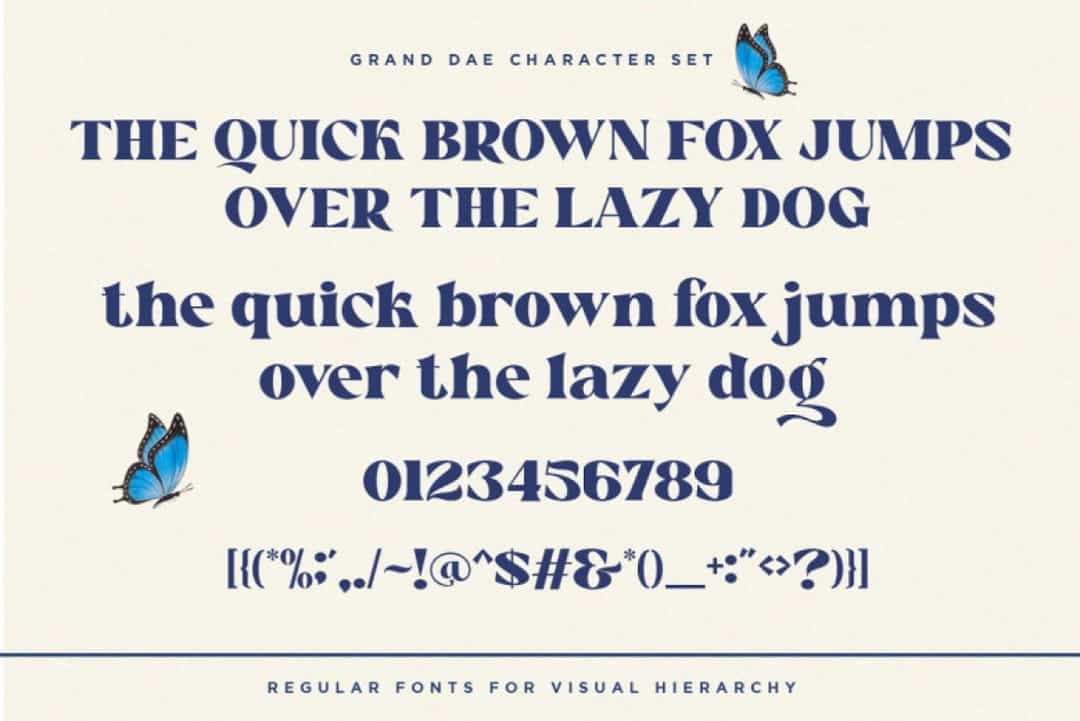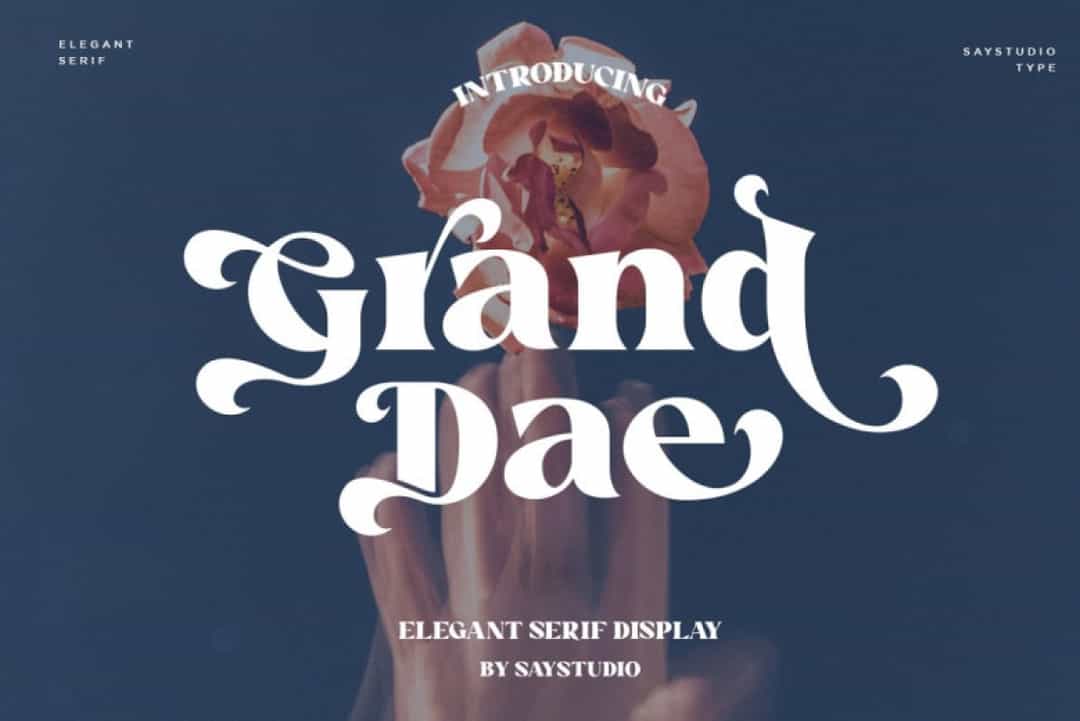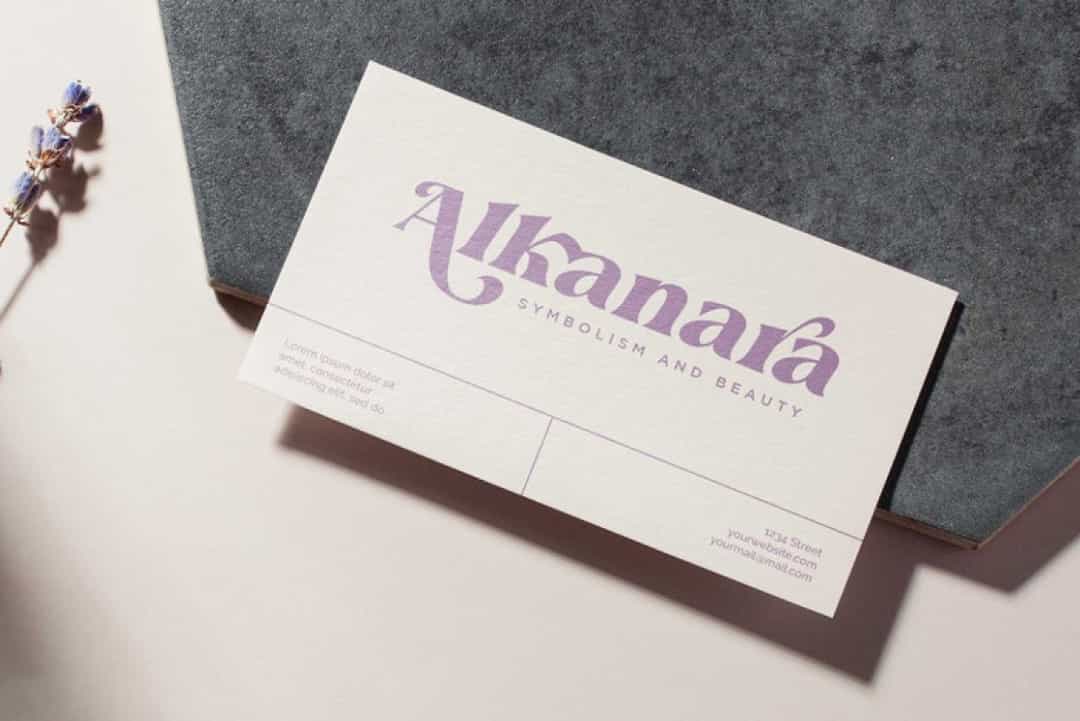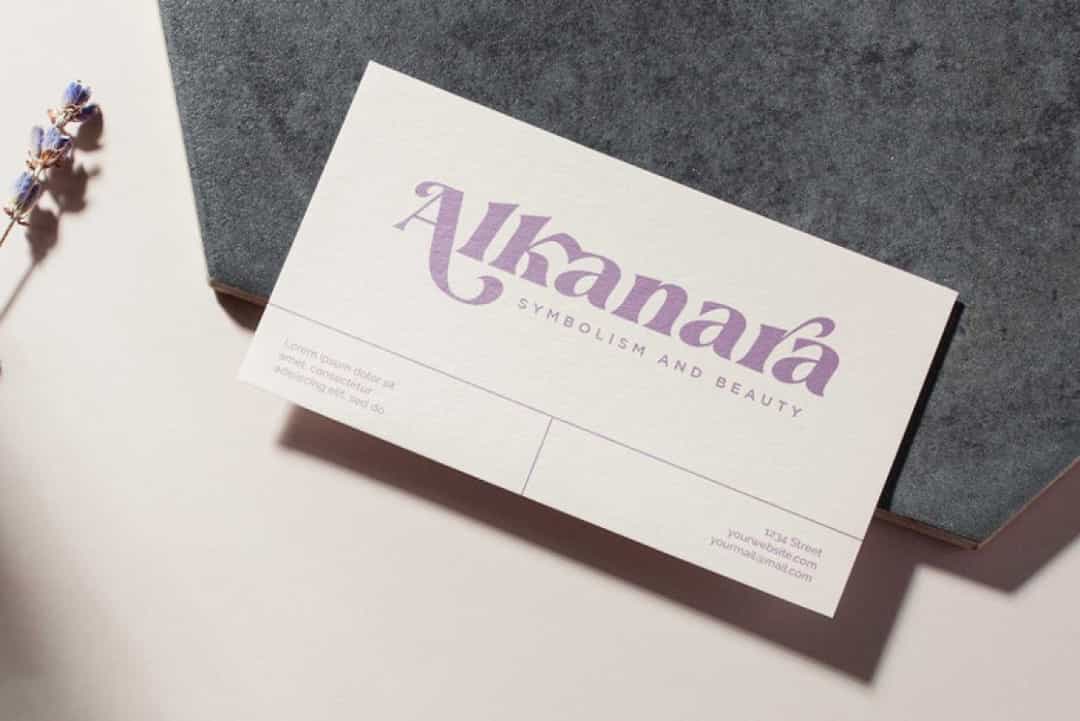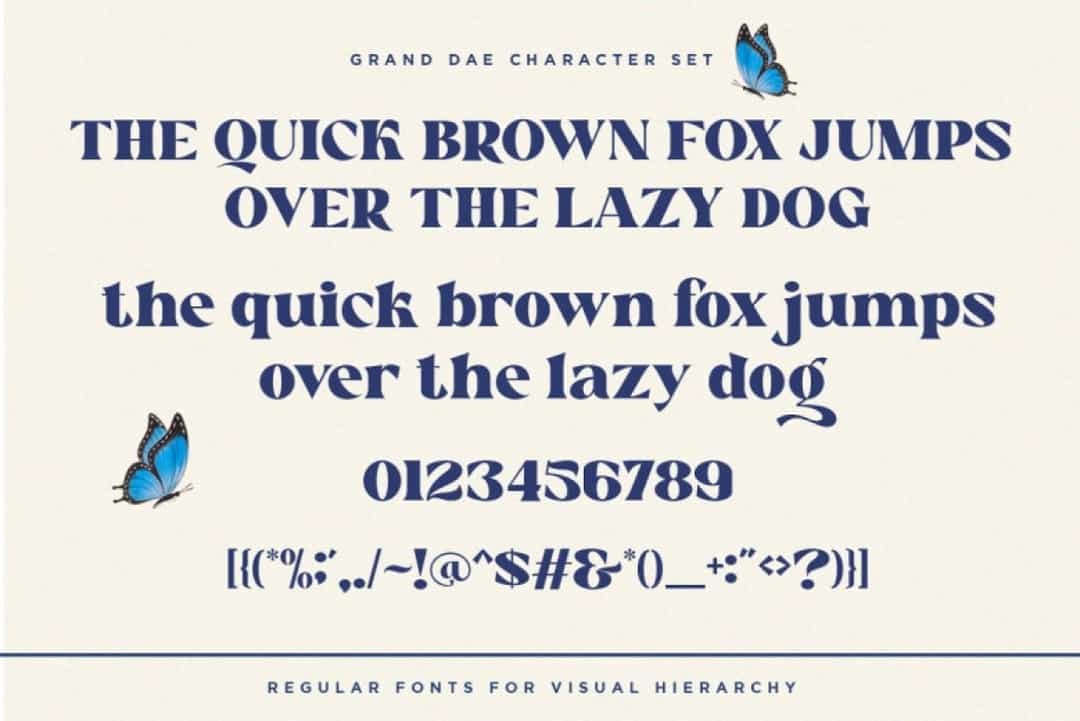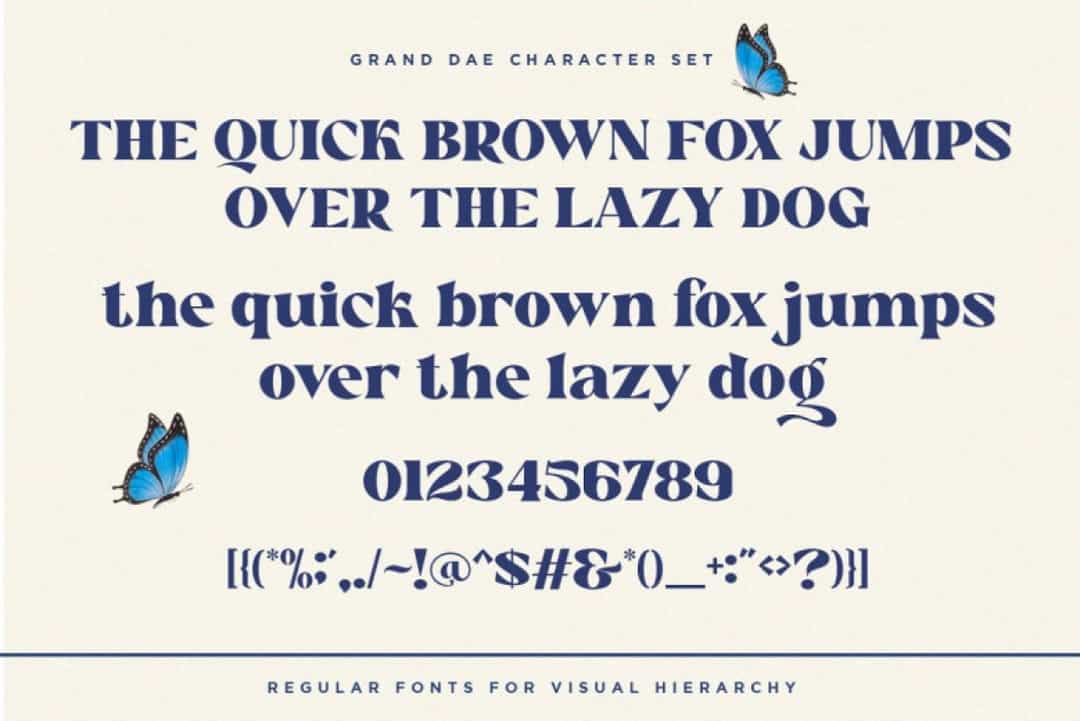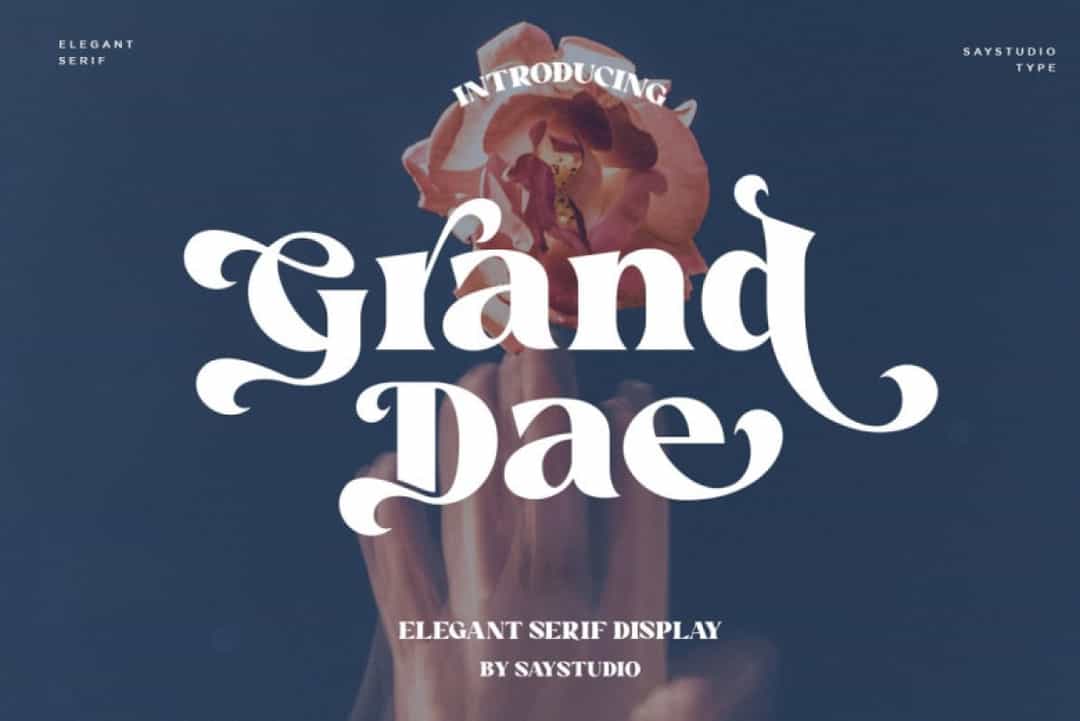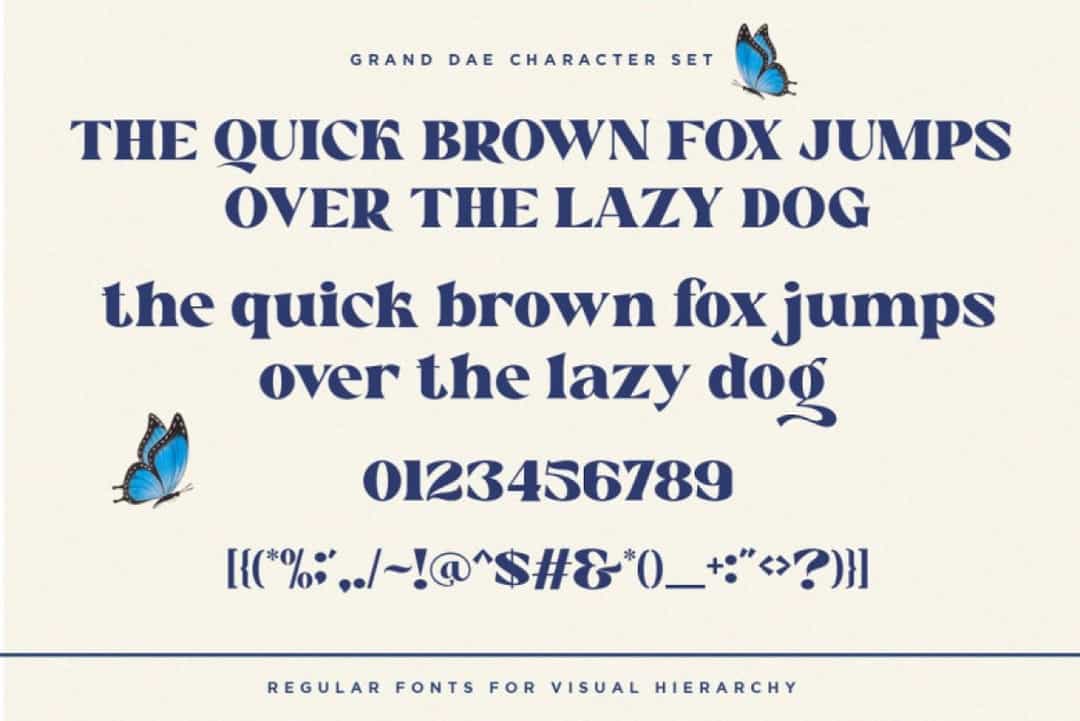
Grand Dae is an elegant display serif font. Perfect for logos, branding and social media campaigns as well as prints on T-shirts, stickers and SVG files! Grand Dae stands out as it can be used across various design styles–be it boho free-spirited styles as well as elegant editorial ones!